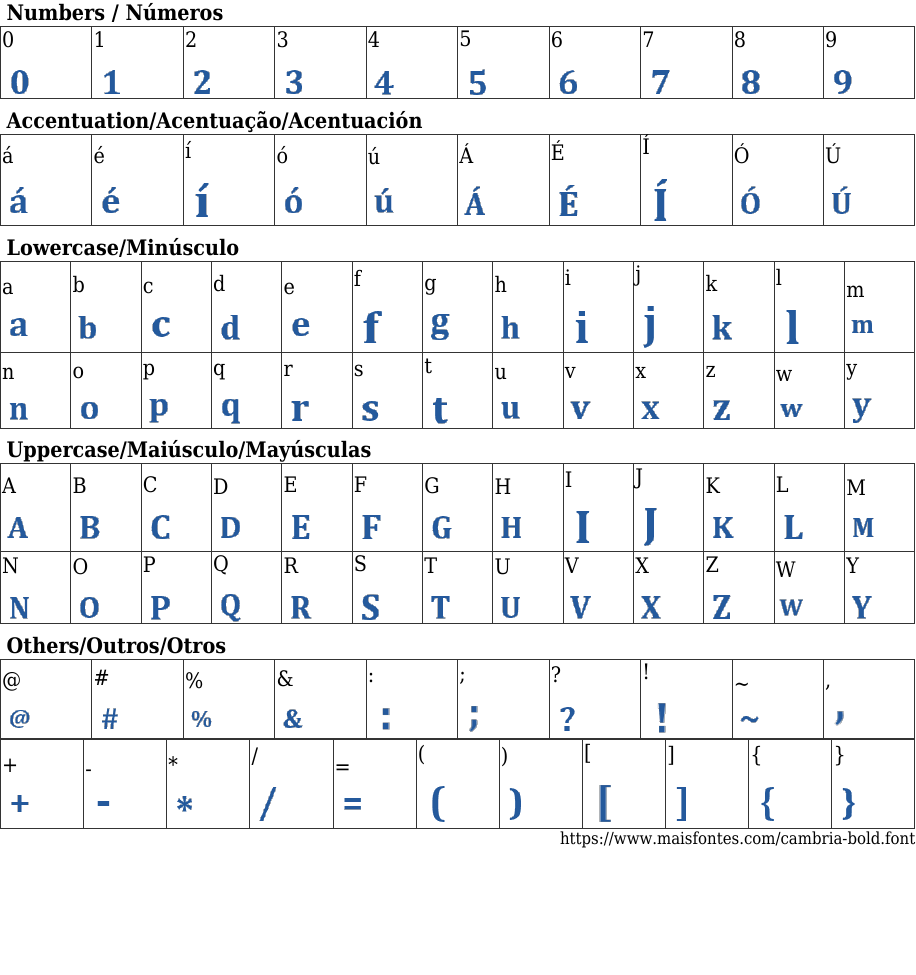
Cambria Bold Font
Discover the free cambria bold font at free font download ! We have 1 free cambria, bold font to offer for direct downloading · 1001 fonts is your favorite. Installable on pc, mac, linux, ios,. This principle is most noticeable in the italics where the lowercase characters are subdued in.
This Principle Is Most Noticeable In The Italics Where The Lowercase Characters Are Subdued In.